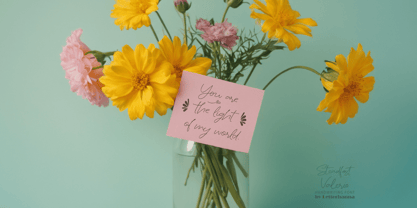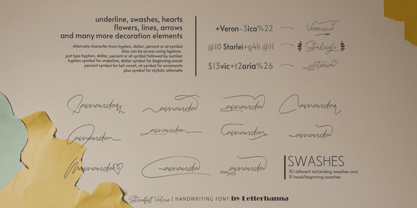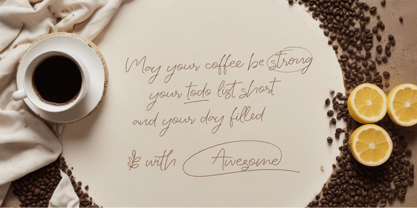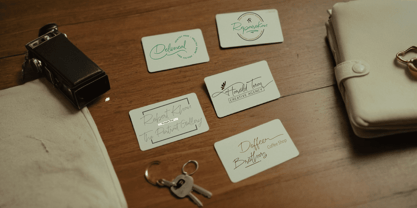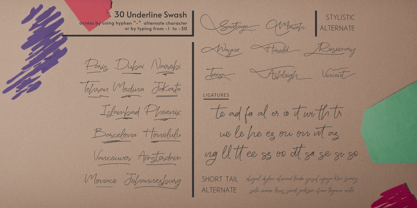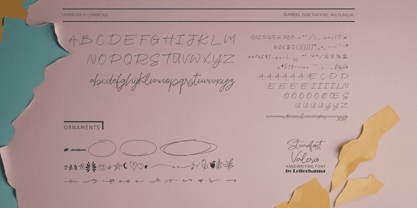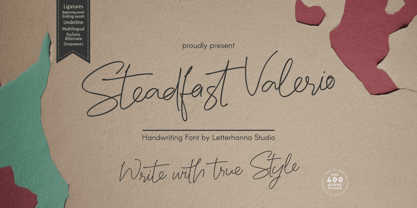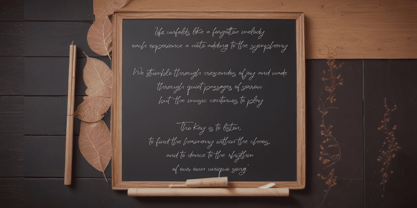
Steadfast Valerio
by Letterhanna Studio
The Steadfast Valerio Font Family was designed by Rinaldo Hasibuan and published by Letterhanna Studio. Steadfast Valerio contains 1 styles. More about this family
Introducing Steadfast Valerio, a thin signature font that blends elegance with natural handwriting flow. Designed with unique ligatures and smooth, fluid strokes, this font captures the essence of personal touch and sophistication. Perfect for branding, logos, invitations, and stylish typography, Steadfast Valerio brings a refined yet effortless charm to every design. Let your words shine with grace and authenticity!
Designers: Rinaldo Hasibuan
Foundry: Letterhanna Studio